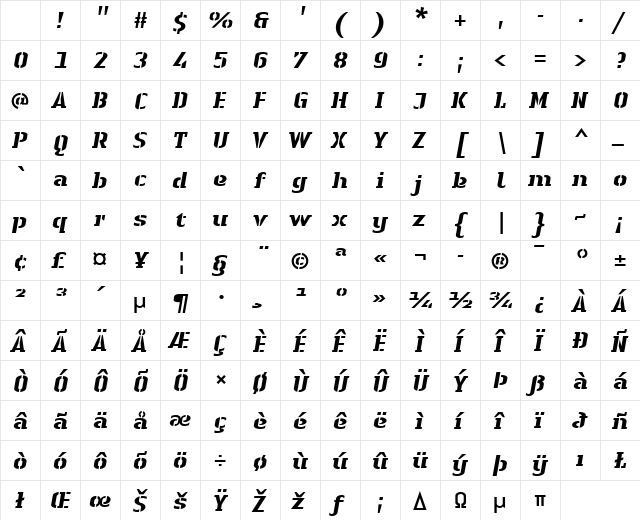
Complete LTAuthenticStencil Heavy Italic glyph index. Displaying only characters natively supported by LTAuthenticStencil Heavy Italic font.
LTAuthenticStencil borrows the utilitarian aesthetic of stencil lettering, with its characteristic cutaways and no-frills construction lending an industrial edge. The slanted form adds forward momentum and visual energy.
Pro Tip: Use LTAuthenticStencil at large sizes on packaging, posters, or apparel where the stencil cutaways read clearly. Avoid small sizes where those gaps become visual noise.